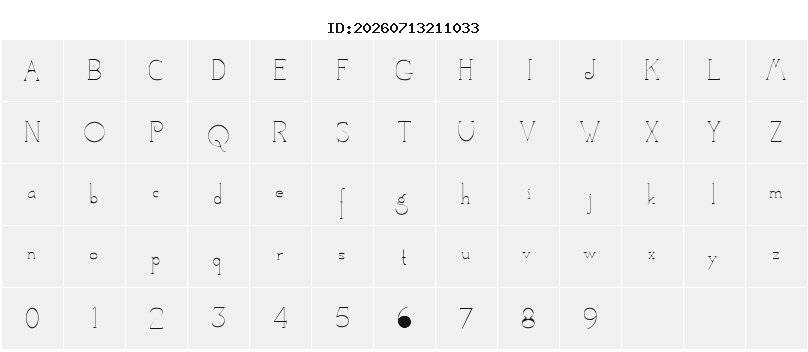
• Font Name: Camelot
• Full Font Name: Camelot Regular
About Camelot.ttf
Camelot.ttf is a modern, elegant sans-serif font designed for ultimate readability and visual harmony. Perfect for branding, headlines, web design, and print materials.